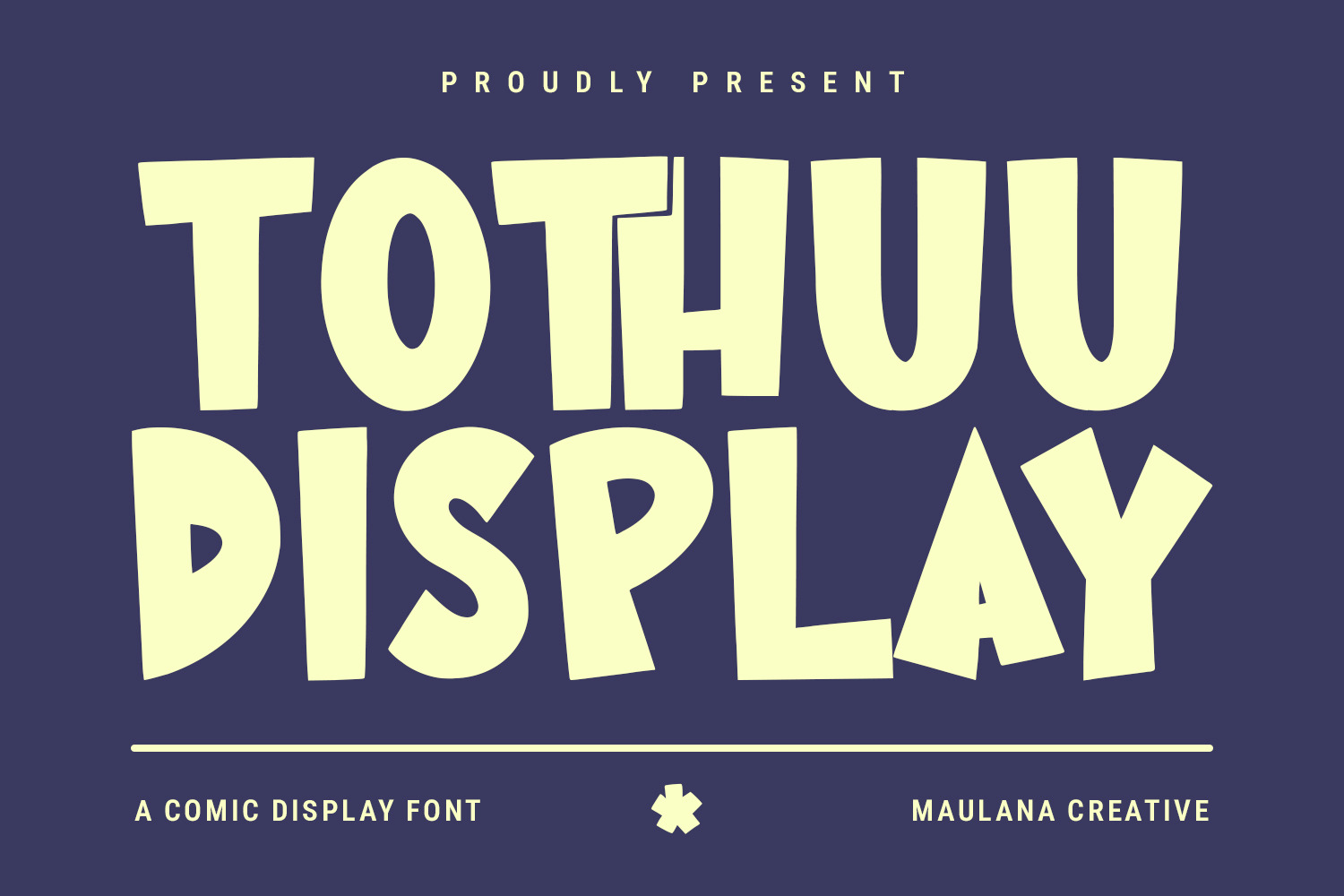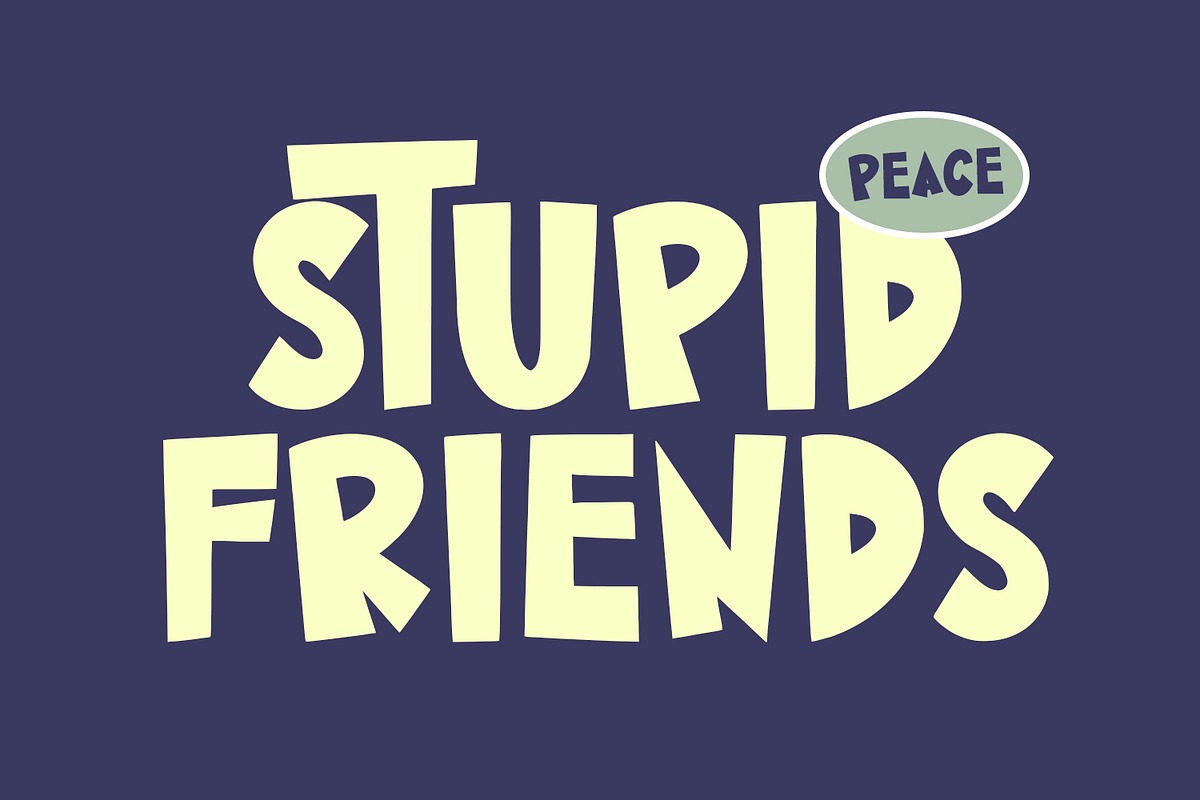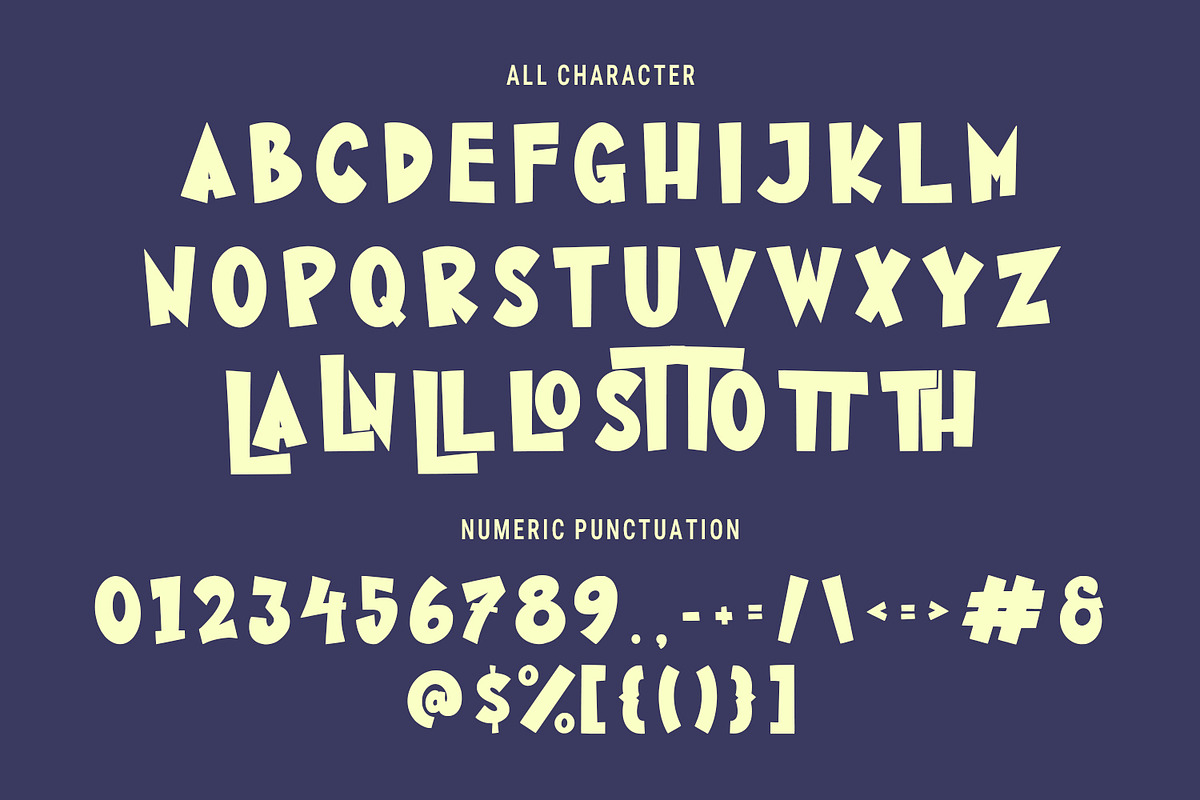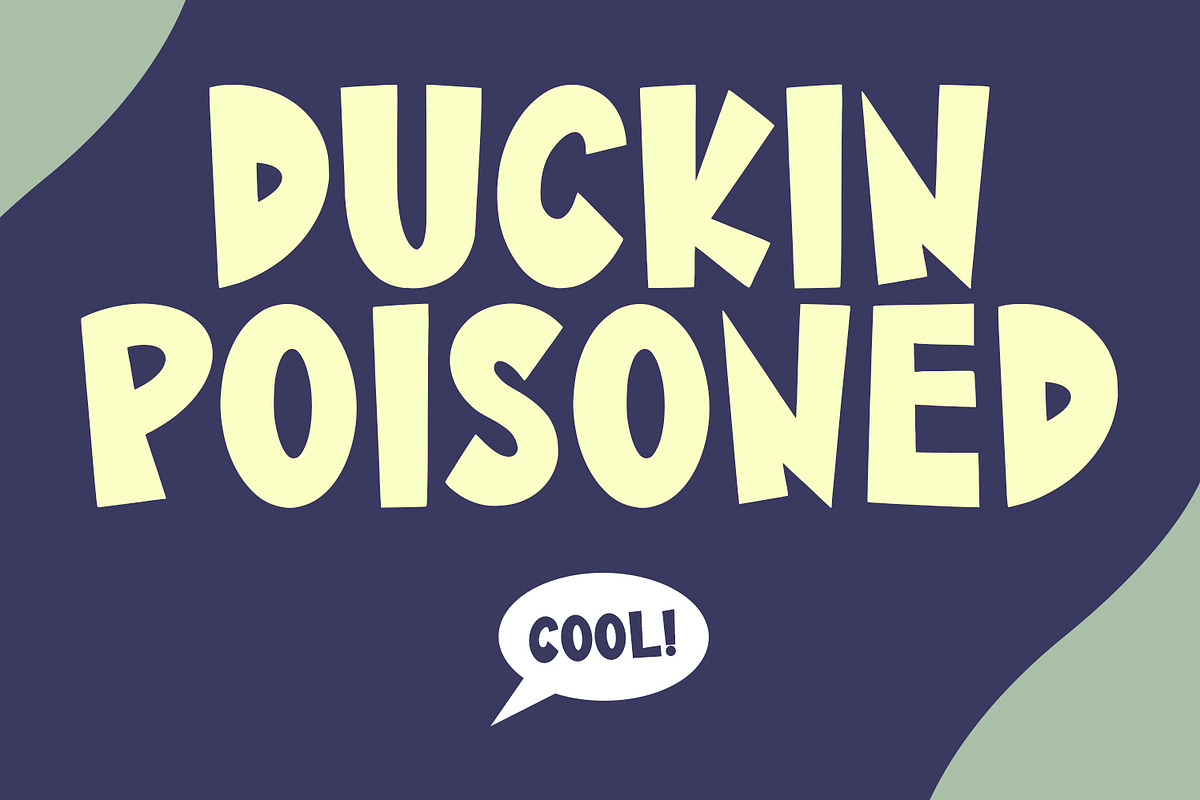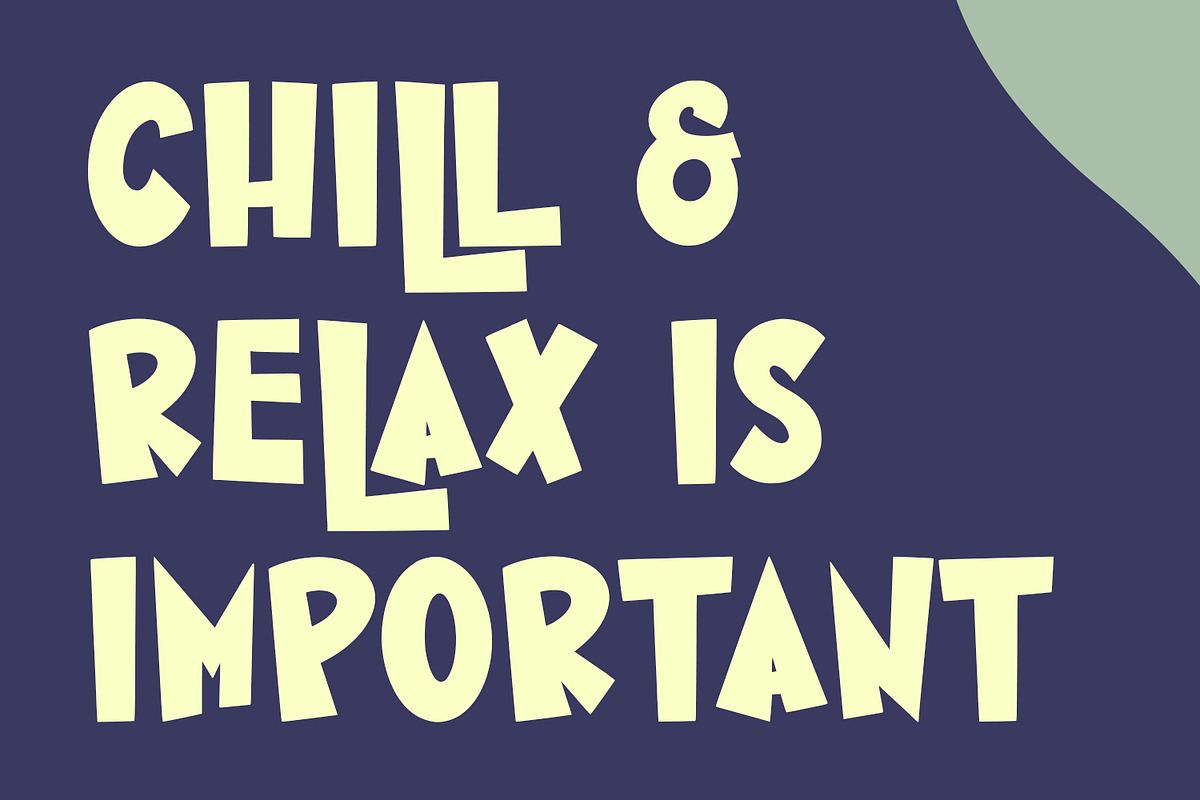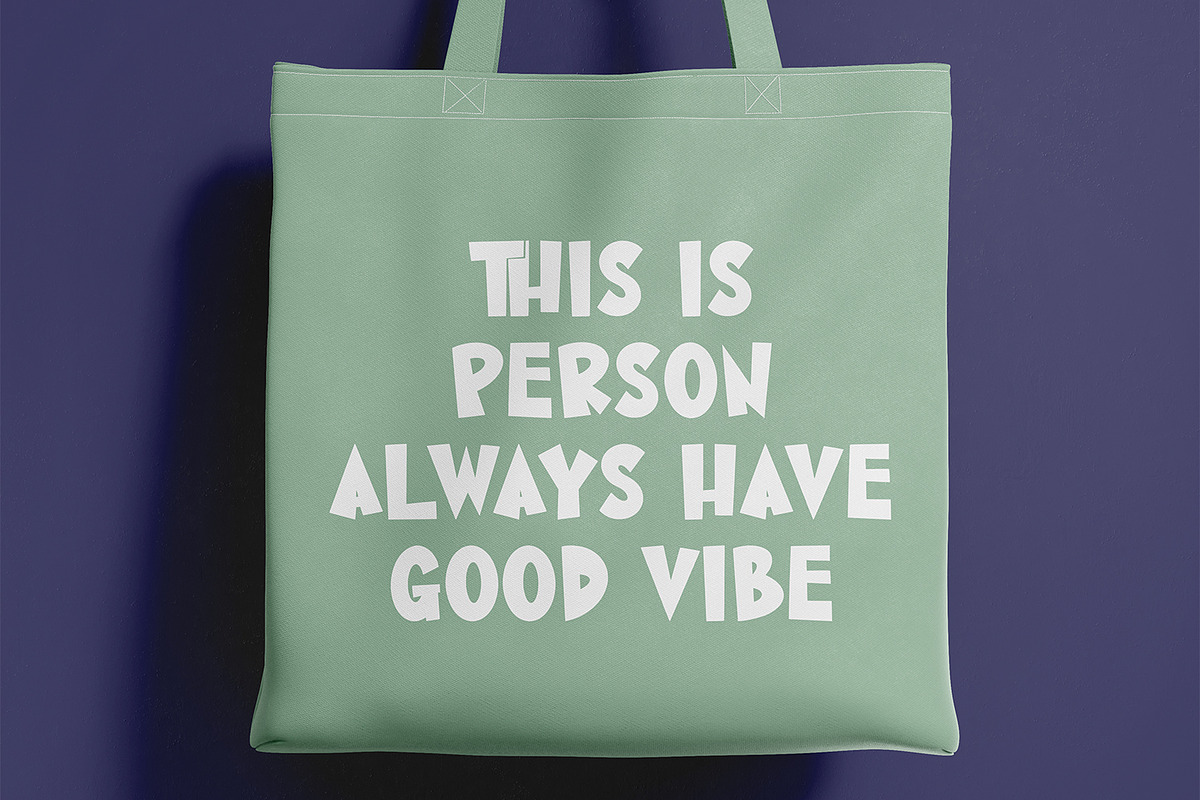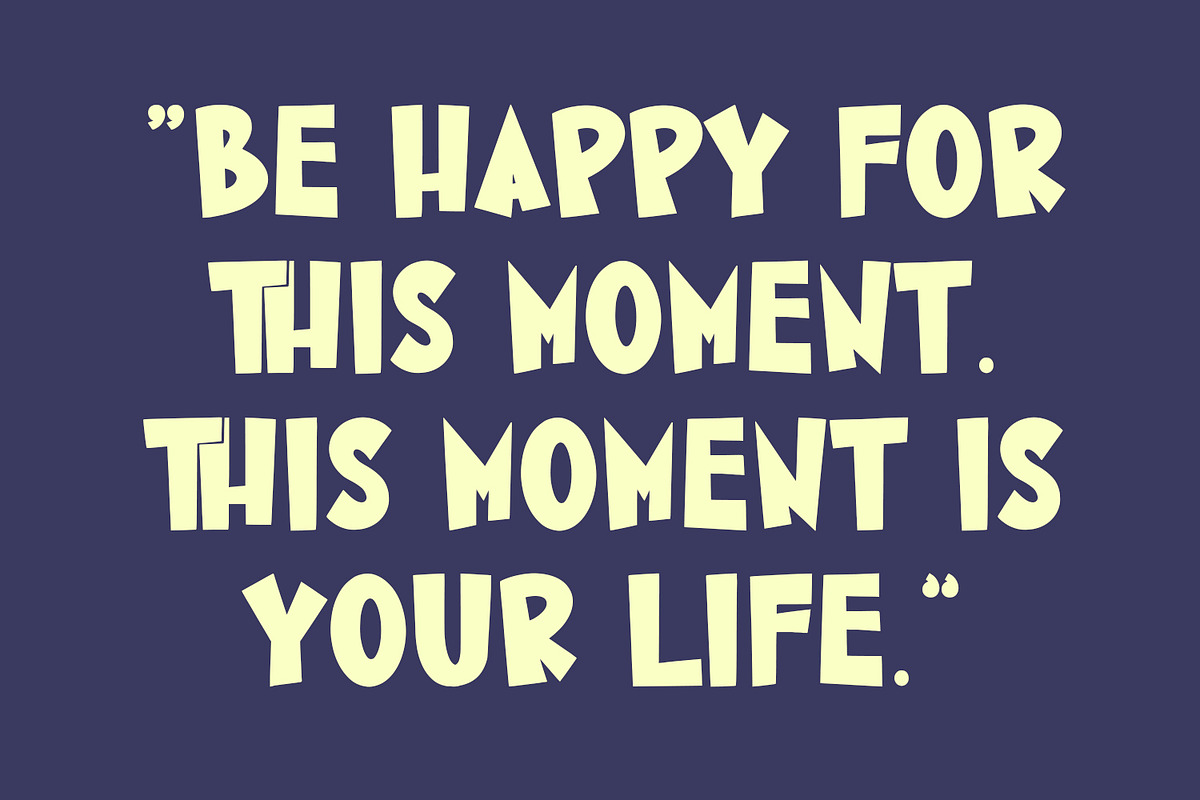
Tothuu Comic Display Font
Tothuu comic playful display font. Bold stroke, fun character with a bit of ligatures. To give you an extra creative work. Tothuu typeface playful display font support multilingual more than 100+ language. This font is good for logo design, Social media, Movie Titles, Books Titles, a short text even a long text letter and good for your secondary text font with script or serif. Make a stunning work with Tothuu Comic Display Font.